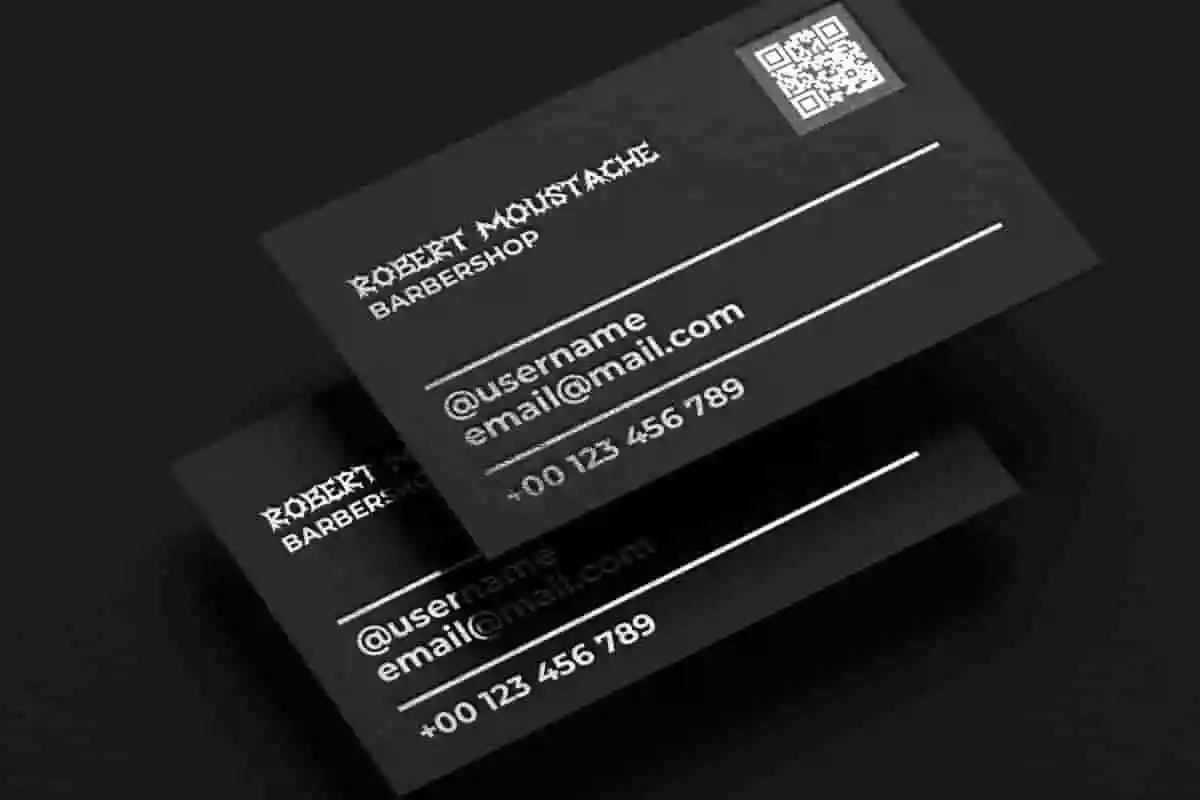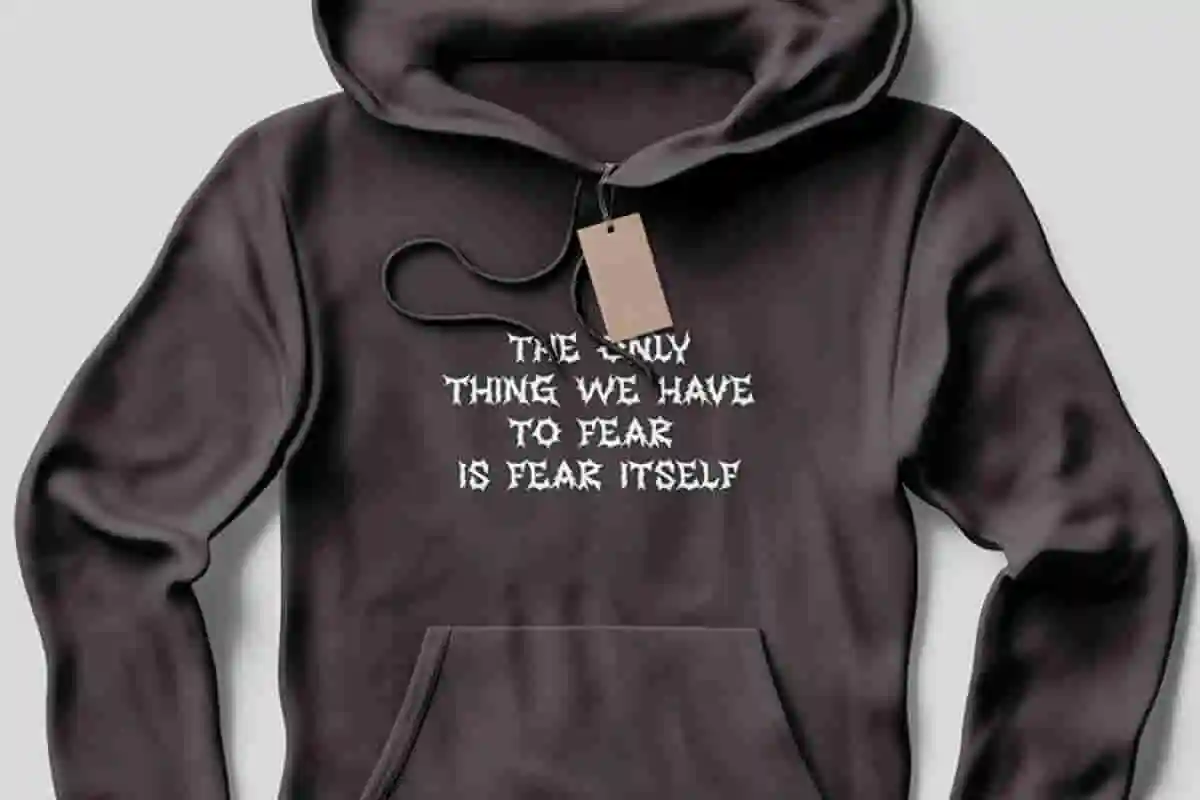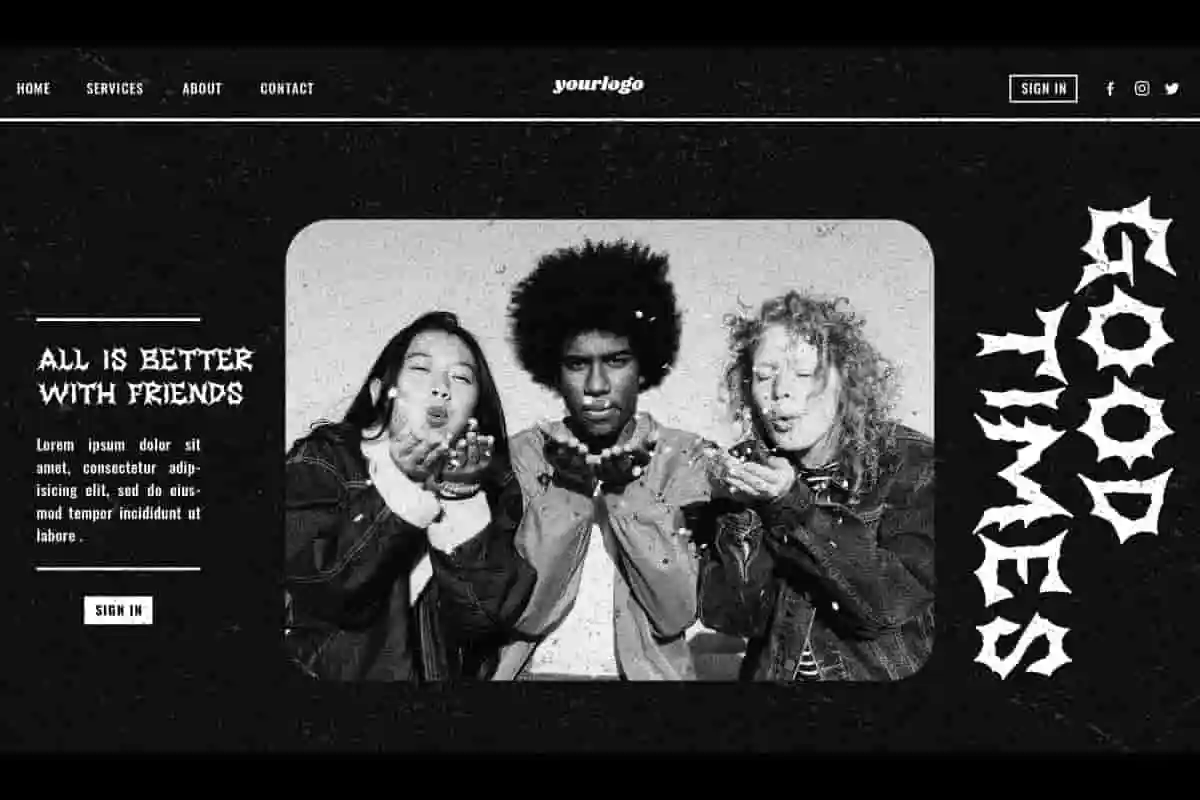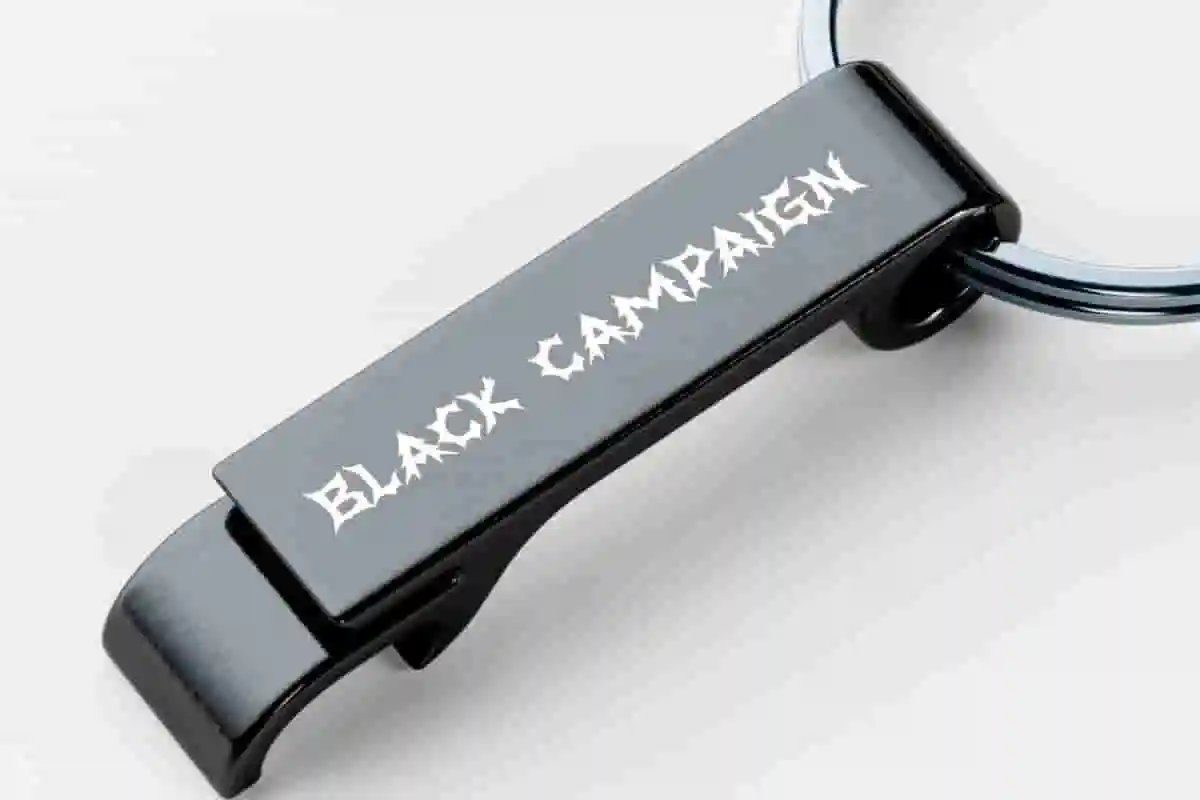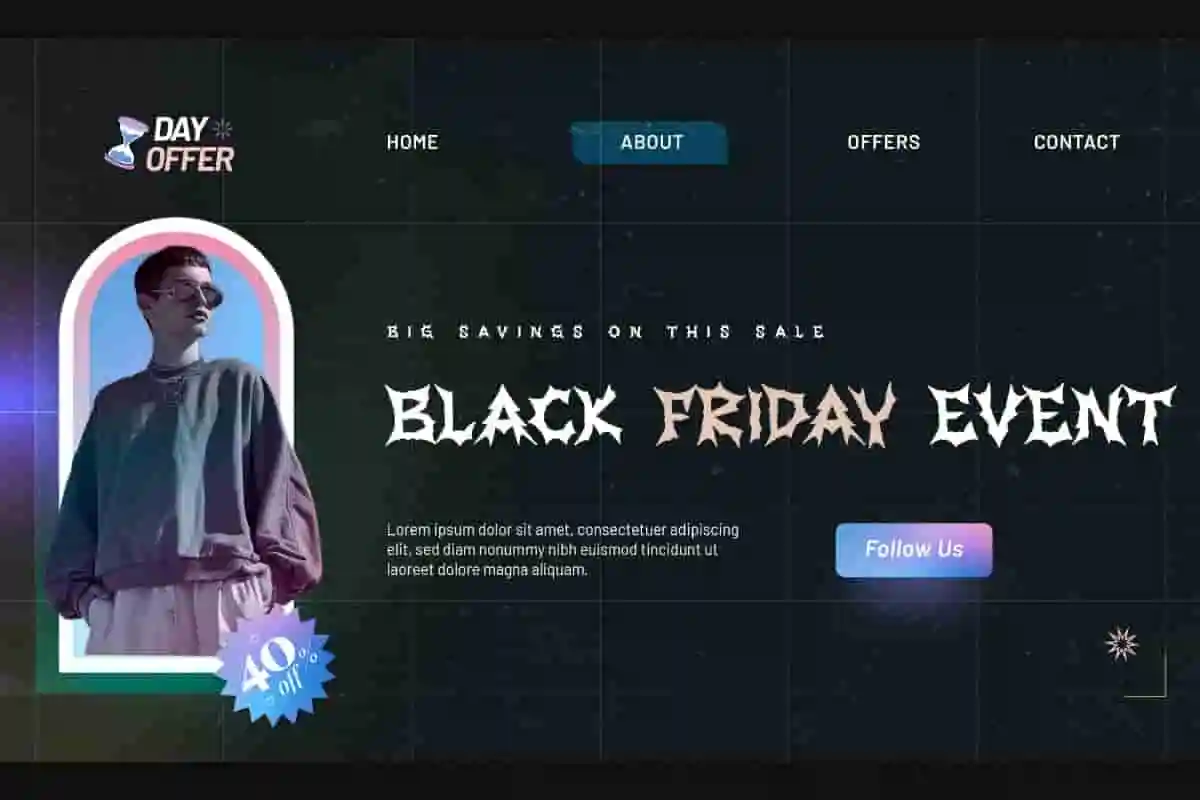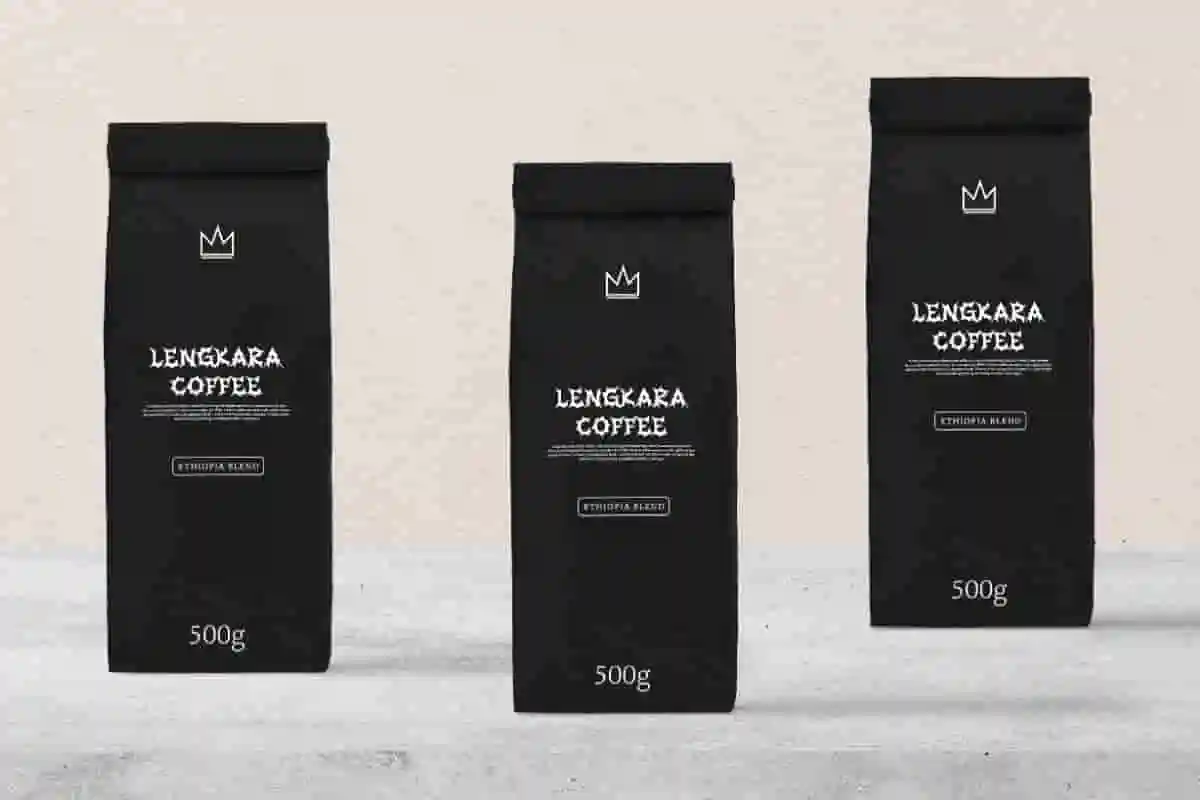
Black Campaign Font is a spine-chilling display font with blackletter style, created by NoahType. This font has a horror look with thorns all over the characters. It will be perfect for any designs, such as brand image, custom design, poster, cover, invitation, label, marketing material, menu, printing, product packaging, quotes, signage, website, and many more!
Black Campaign Font includes full set of ALL CAPS for Uppercase and Lowercase Basic Characters in different sizes, Numerals, Punctuation, and Symbol. This font will give amazing touch and also a perfect choice for many industries, such as fashion, game, movie, music, barber shop, accessories, advertising, art, café, printing, publishing, etc.